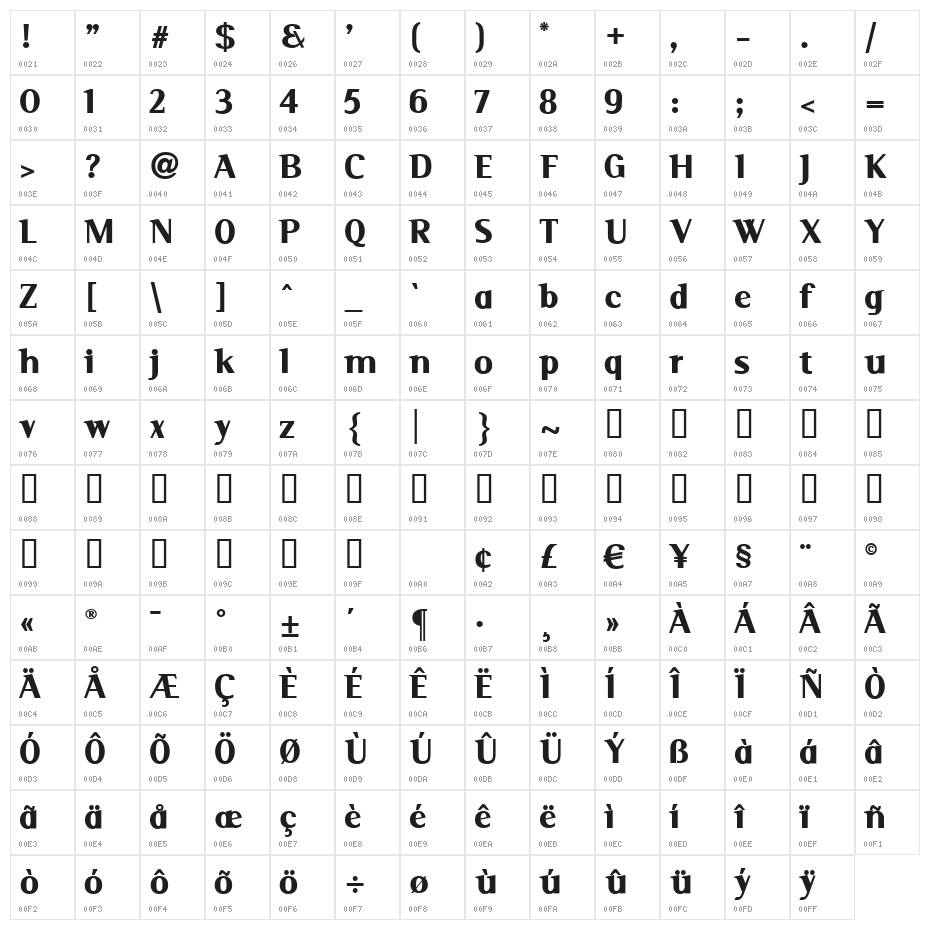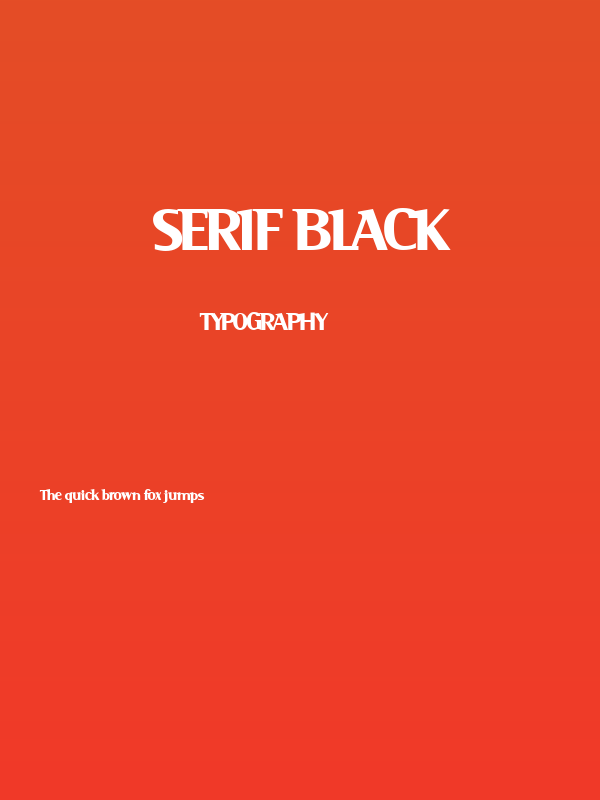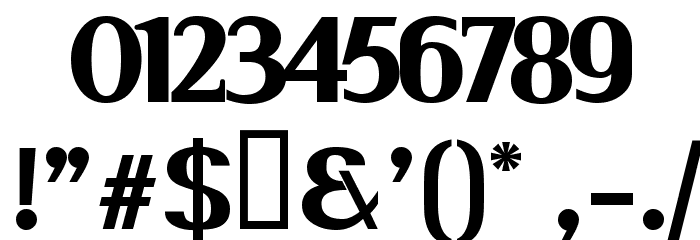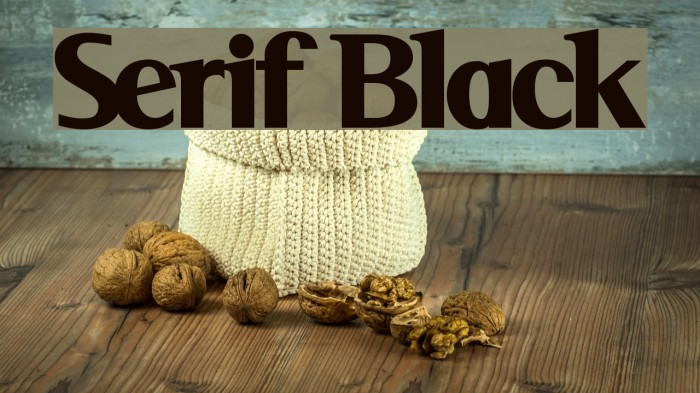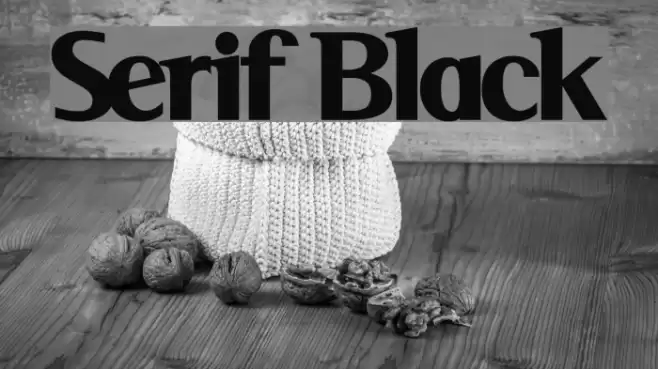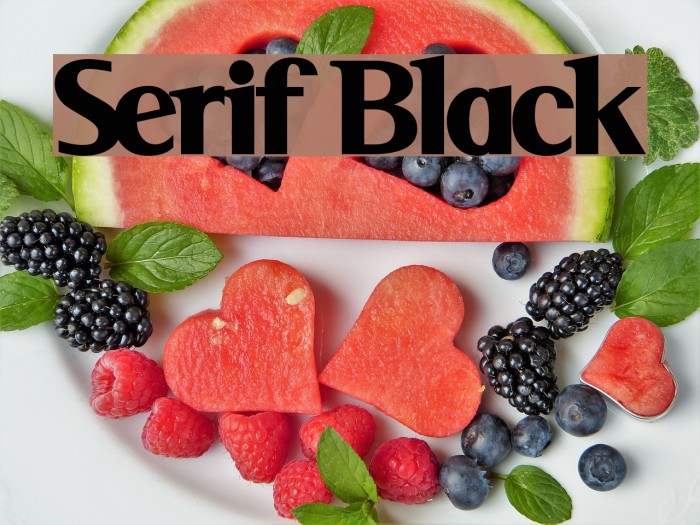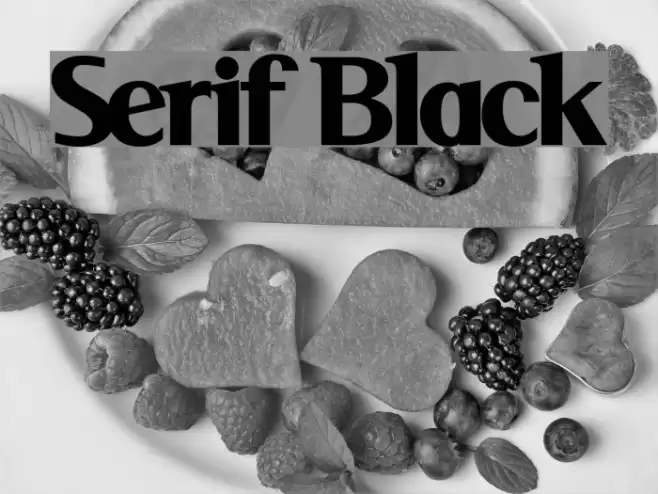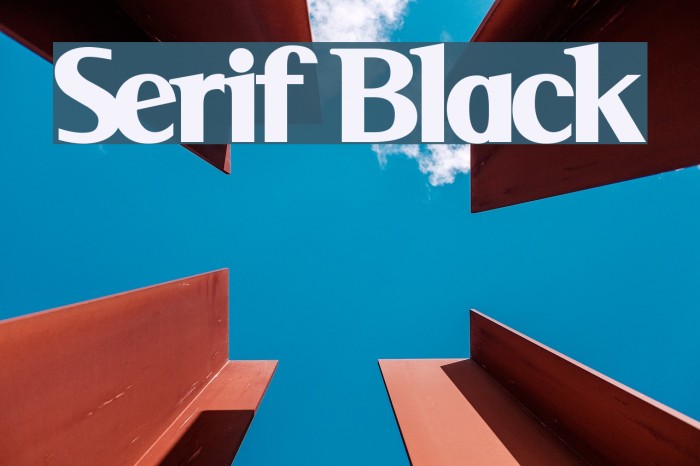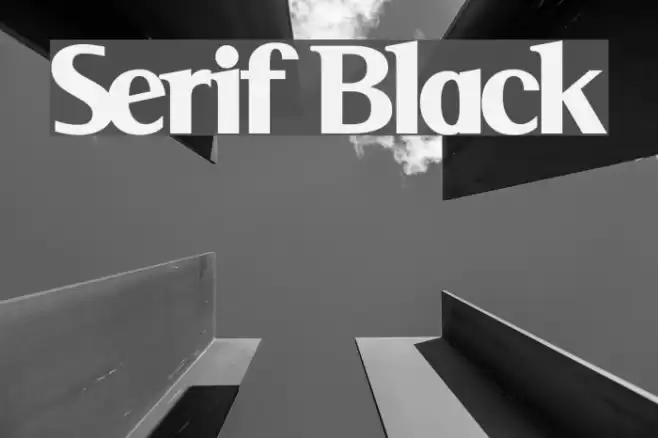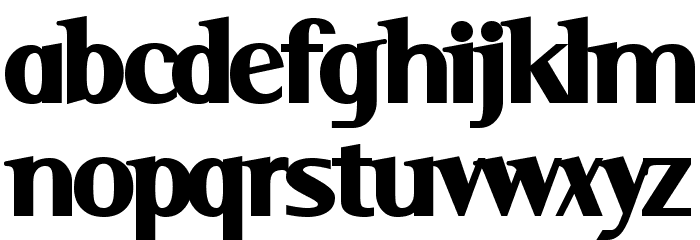
Serif Black Font
Serif Black Description
This font features a bold and commanding presence with its thick, strong strokes and pronounced serifs. The uppercase letters exhibit a robust and authoritative style, while the lowercase letters maintain a consistent weight, providing a harmonious balance. The numerals are equally bold, ensuring clarity and readability. Special characters are designed with the same attention to detail, making them stand out effectively. The overall design is both classic and modern, suitable for making a strong visual impact.
| Overall Style | Classic |
| Proposed Projects | This font is perfect for headlines, posters, branding, and any project requiring a strong, authoritative typeface. |